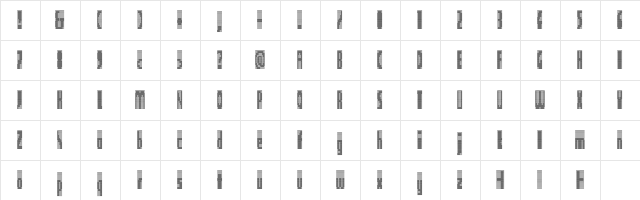
Complete Deeter Condensed glyph index. Displaying only characters natively supported by Deeter Condensed font.
Deeter is a composed and adaptable typeface that performs quietly and consistently across a wide range of design contexts. Its narrow stance lets it pack a punch even in space-constrained designs.